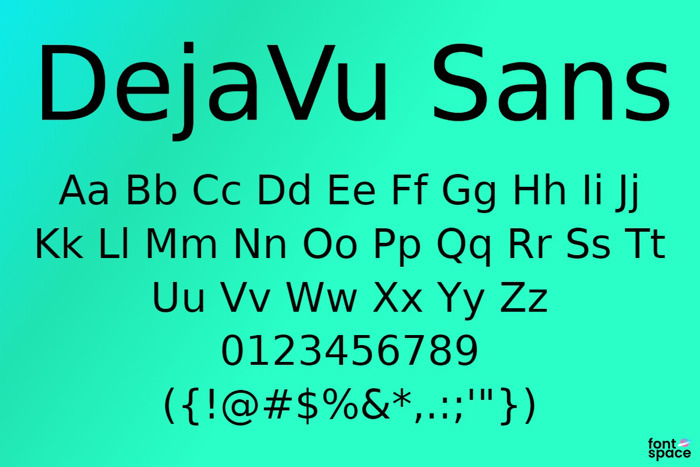
DejaVu Sans Font
The DejaVu fonts are a font family based on the Vera Fonts. Its purpose is to provide a wider range of characters while maintaining the original look and feel through the process of collaborative development, under a Free license.